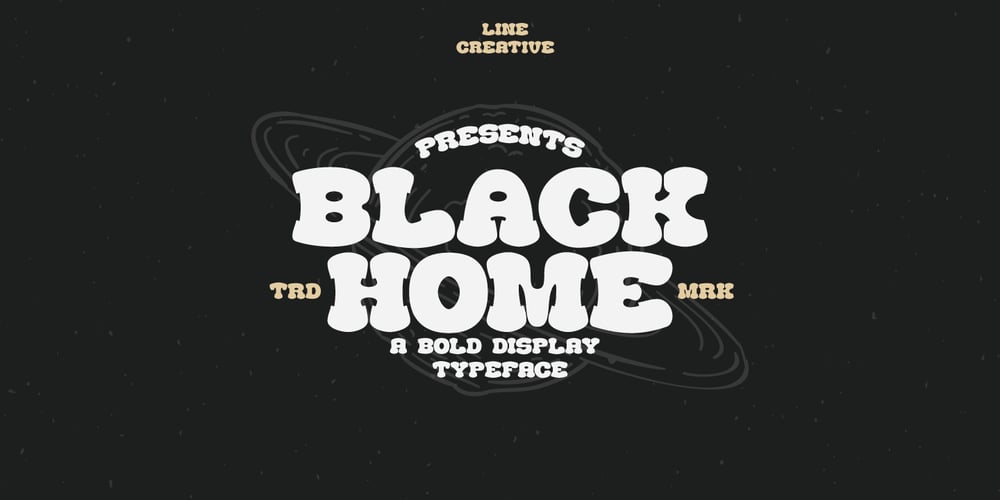
Black Home Font Family was designed by Ari Juanda and published by Linecreative. Black Home contains 1 styles and family package options. Black Home Inspiring from vintage playful style typography. This font is perfect for a design that makes it more attractive and playful. made with a very good level of aesthetics making this font suitable for book cover, poster, packging, merchandise, logotype and much more.What you get dear, you will get :Black Home- including Upper & Lowercase characters(ALL CAPS),Numbers and PunctuationSupports Multi linguage (Latin Western Europe)